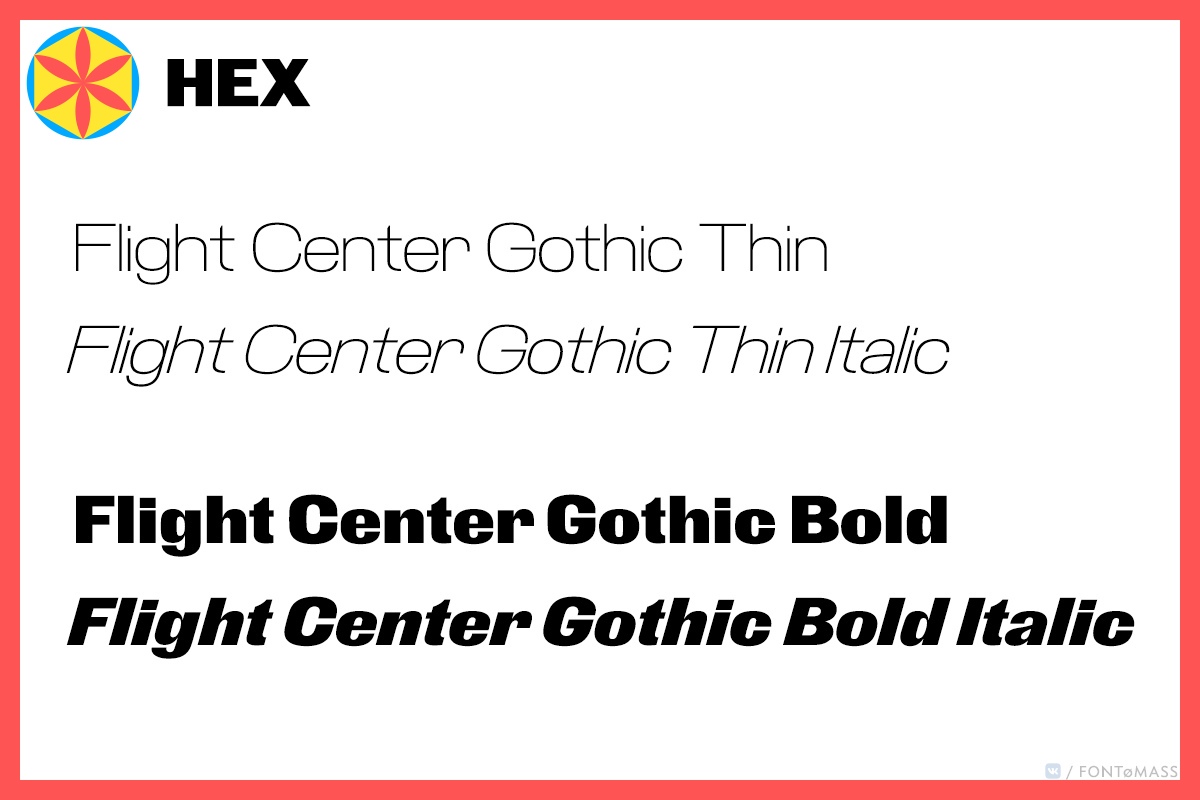
Flight Center Gothic Font
Flight Center Gothic Font is perfect for aviation industry branding, airport terminal signage, airline communications, travel agency materials, aerospace company presentations, aviation museum displays, pilot training documentation, aircraft manufacturing marketing, and flight-related corporate identities.
What makes Flight Center Gothic Font exciting is its commanding aviation character that perfectly captures the precision, reliability, and professional excellence required in the aerospace industry through bold, authoritative letterforms. The font features strong geometric structures with aeronautical-inspired details that evoke the technical sophistication and safety standards essential to flight operations. Its robust design philosophy embodies the confidence and trustworthiness that passengers and aviation professionals demand, making it perfect for organizations that want to communicate flight expertise, operational reliability, and the cutting-edge technology that makes modern aviation possible.
Flight Center Gothic Font family includes various aviation weights such as Regular, Medium, Bold, and Heavy variations, often featuring condensed versions optimized for airport signage and terminal displays. The family may include aeronautical symbols, aviation-specific alternates, and flight-themed decorative elements that enhance the font's aerospace aesthetic, providing designers with comprehensive options for creating authoritative brand identities that resonate with aviation professionals and air travel consumers.